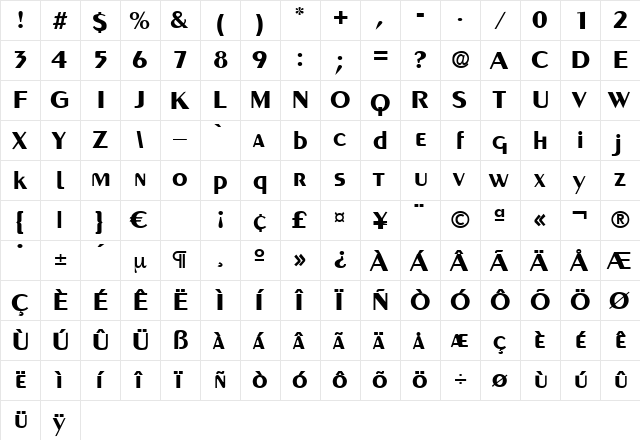
GreyhoundBold Regular Font Preview
GreyhoundBold Regular
GreyhoundBold Regular Font Details
Design Context for GreyhoundBold Typeface
GreyhoundBold offers clean, dependable letterforms without strong stylistic allegiance, making it a practical choice for designers who need flexibility. Its bold stroke weight gives it real presence on the page.